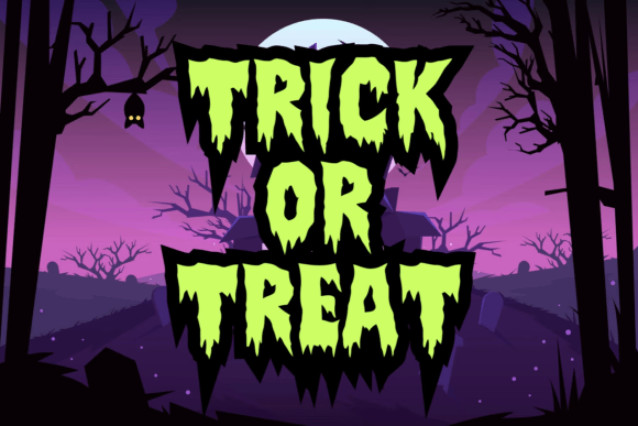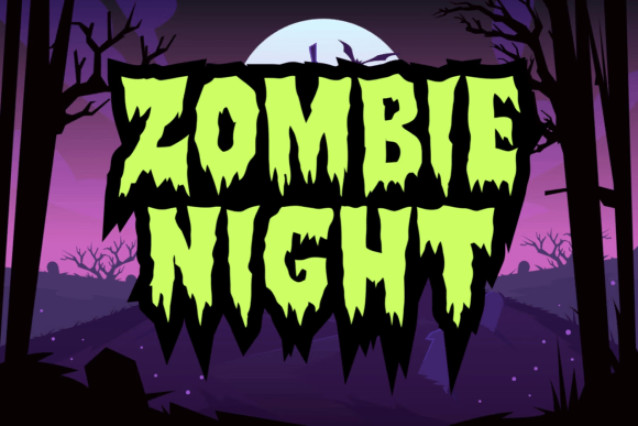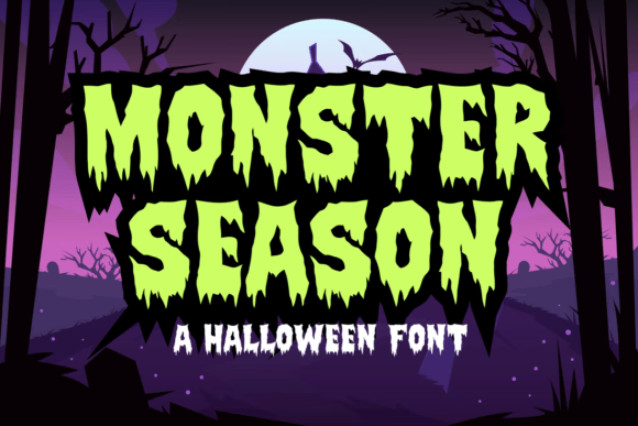
Monster Season Font
Dive into the captivating world of Monster Season, an exquisite font that artfully intertwines otherworldly and whimsical elements to create a unique design. Engraved with an unmistakable spectral allure, this mesmerizing font breathes life and uniqueness into your design ideas.
Monster Season’s intrigue lies within its rare capability to create a perfect equilibrium of melancholic and jubilant tones, providing a forward-thinking typographic option for creative endeavors craving a sprinkle of audacious charm. Rely on Monster Season to impart a vibrant core of gripping individuality unparalleled in the typographic landscape.